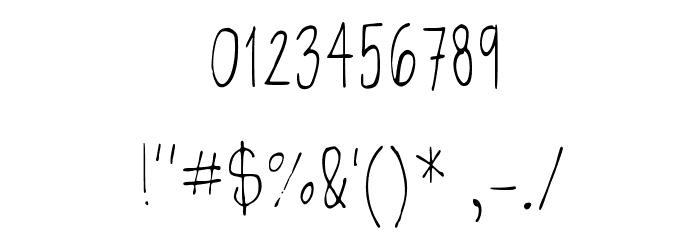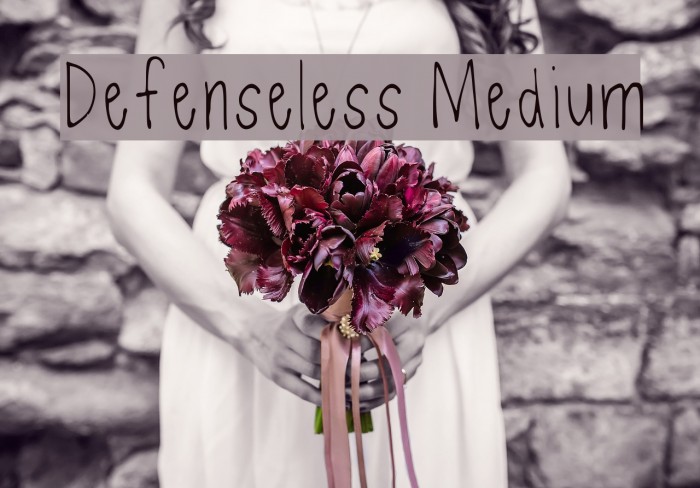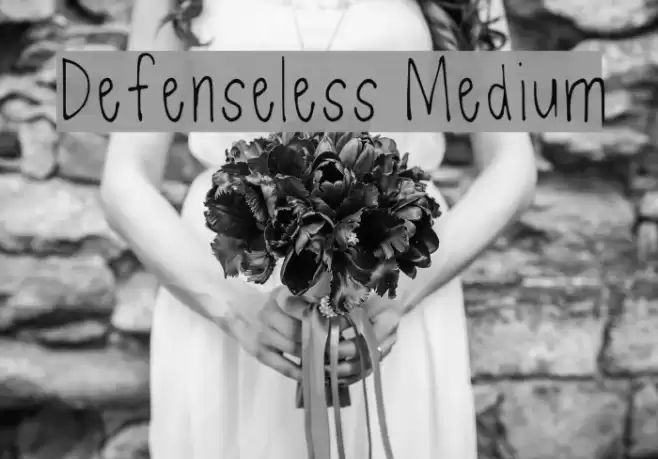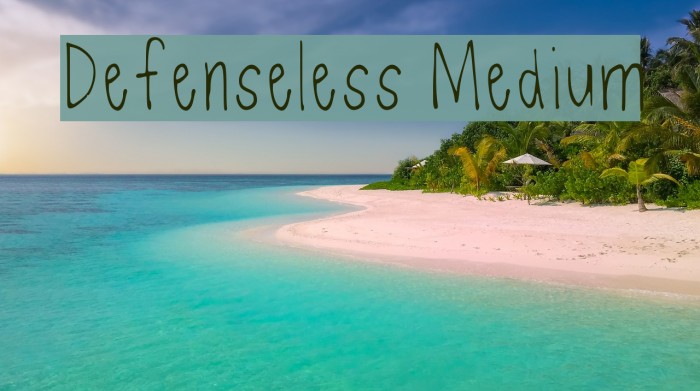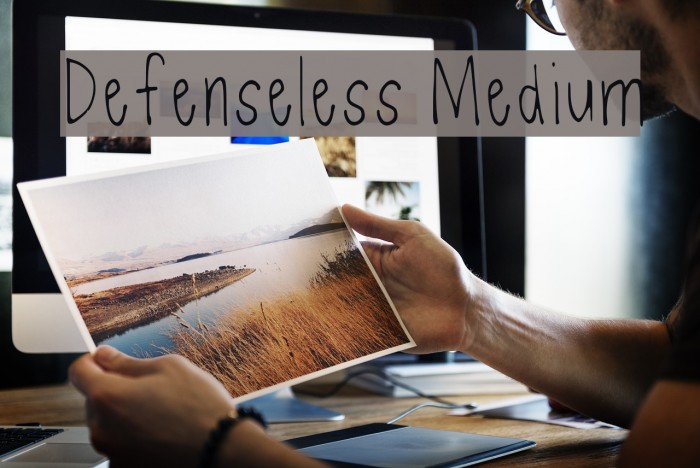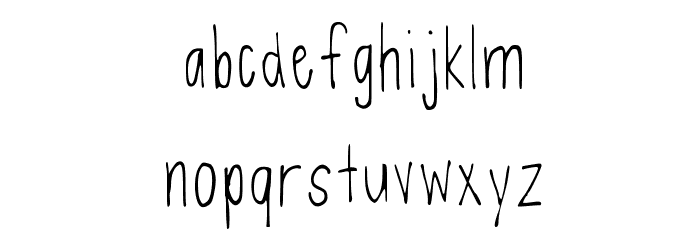
Defenseless Medium Font
Defenseless Medium Description
This font features a playful and casual handwritten style, characterized by its irregular strokes and slightly uneven baseline. The letters have a whimsical and friendly appearance, making it ideal for projects that require a personal touch. The uppercase and lowercase letters maintain a consistent style, with a slight tilt that adds to the informal feel. The numerals and special characters are designed to match the overall aesthetic, ensuring a cohesive look across all text elements.
| Overall Style | Casual |
| Use Case | Headlines, Informal text, Personal projects |
| Proposed Projects | Ideal for greeting cards, children's books, personal blogs, and informal branding projects. |